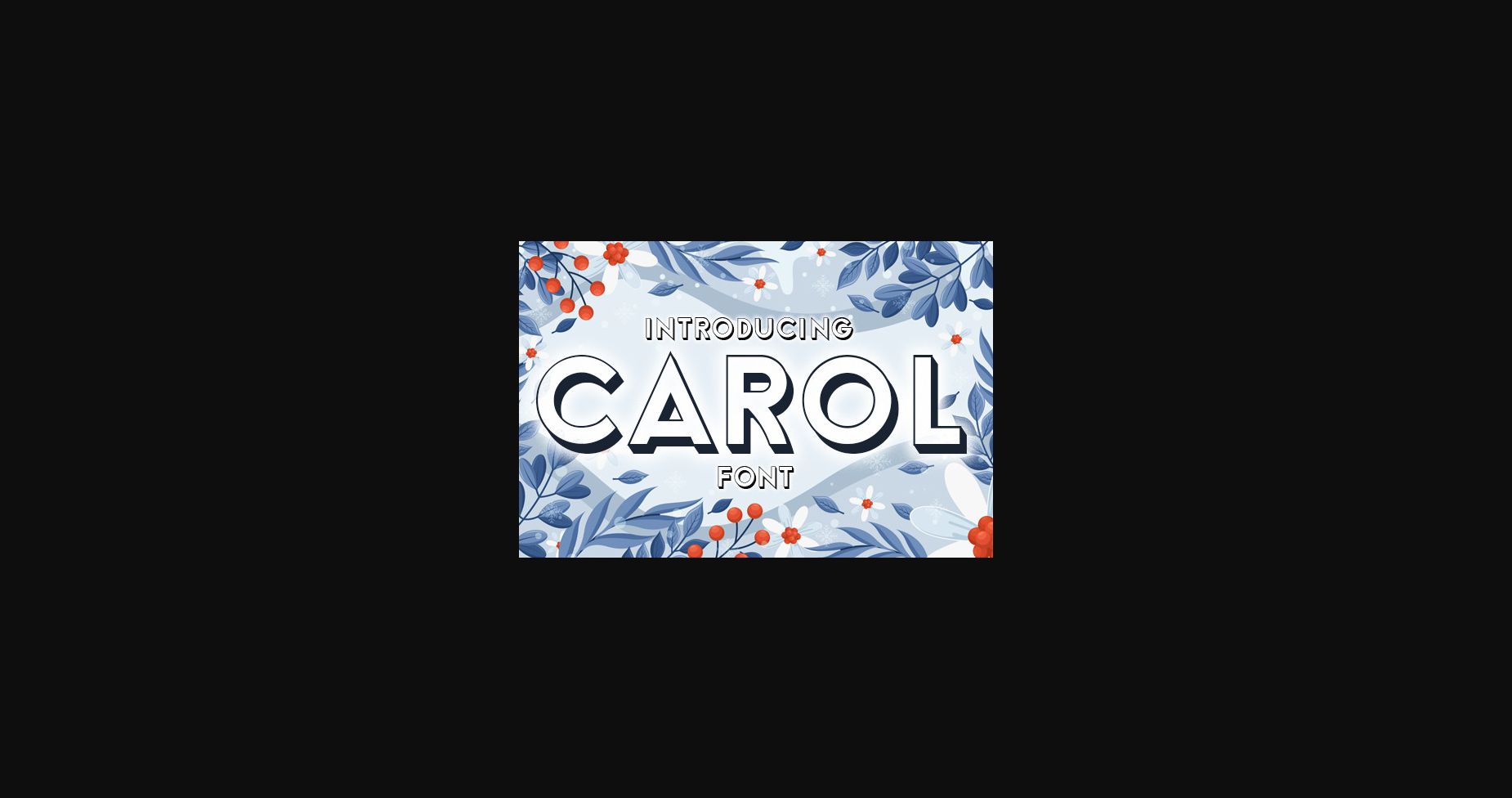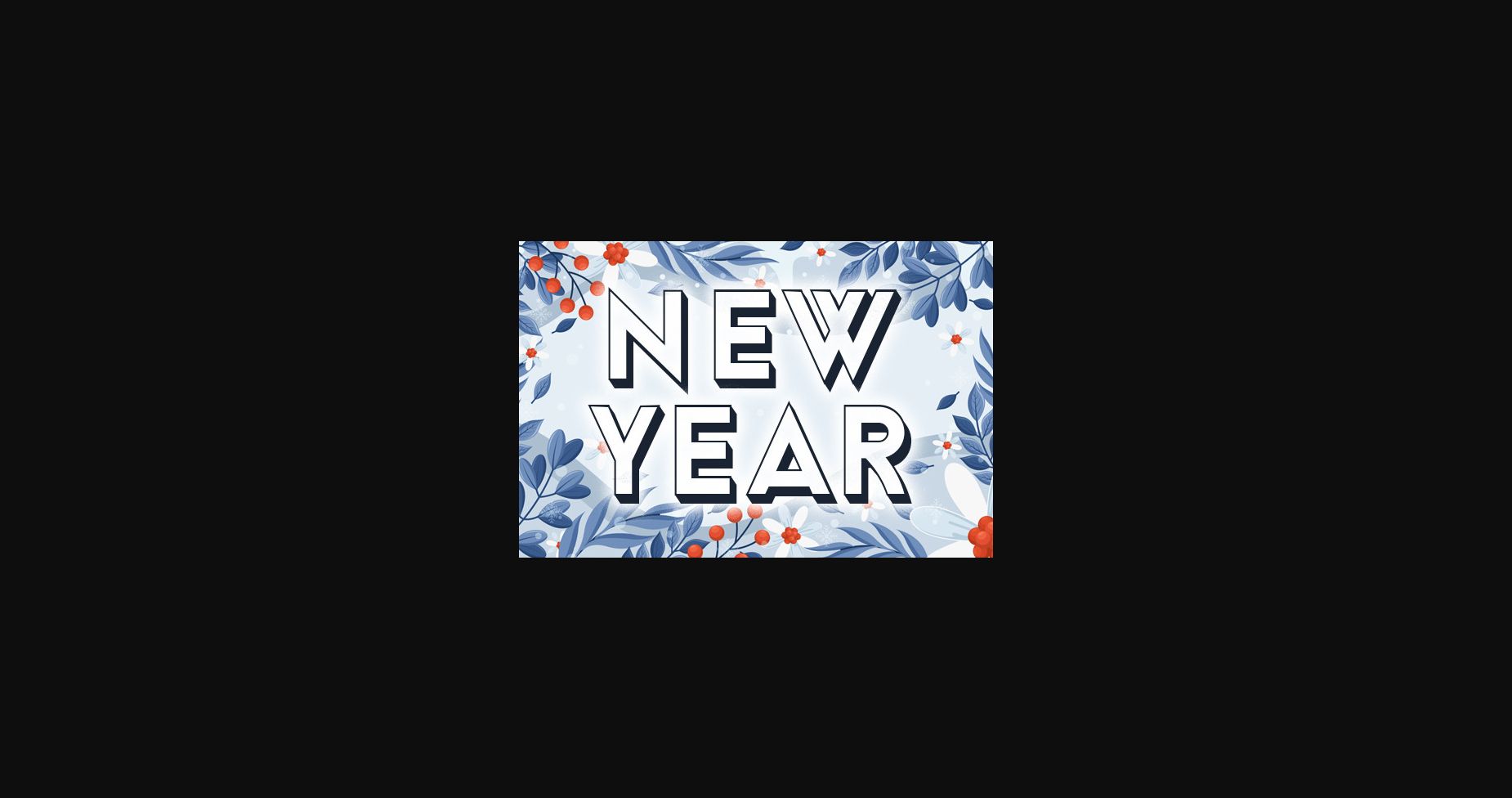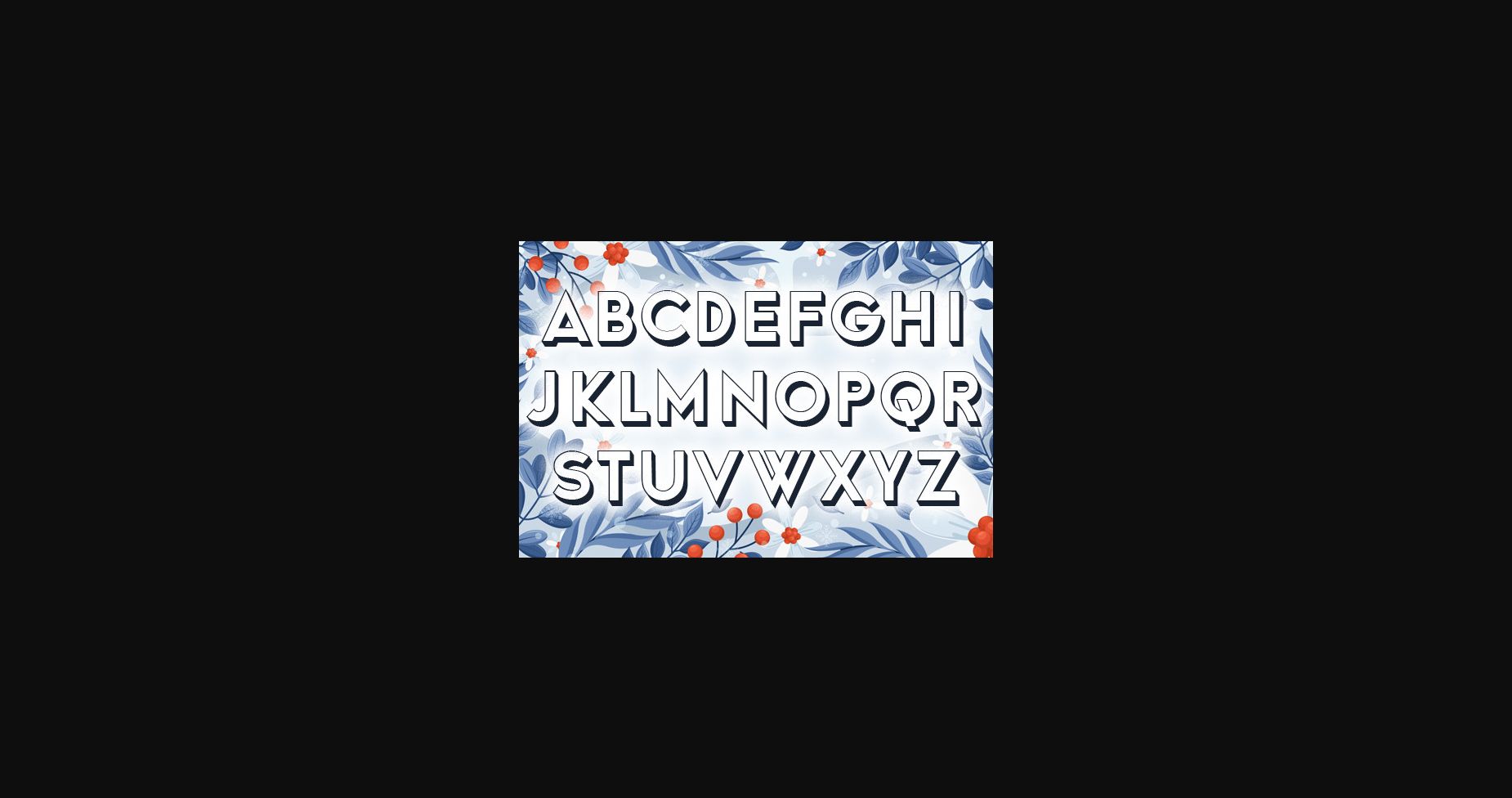
Carol Font
About Carol Font
Carol is a stylish 3D sans serif typeface that will look stunning on any of your designs. Use this font on posters, headlines, and much more.